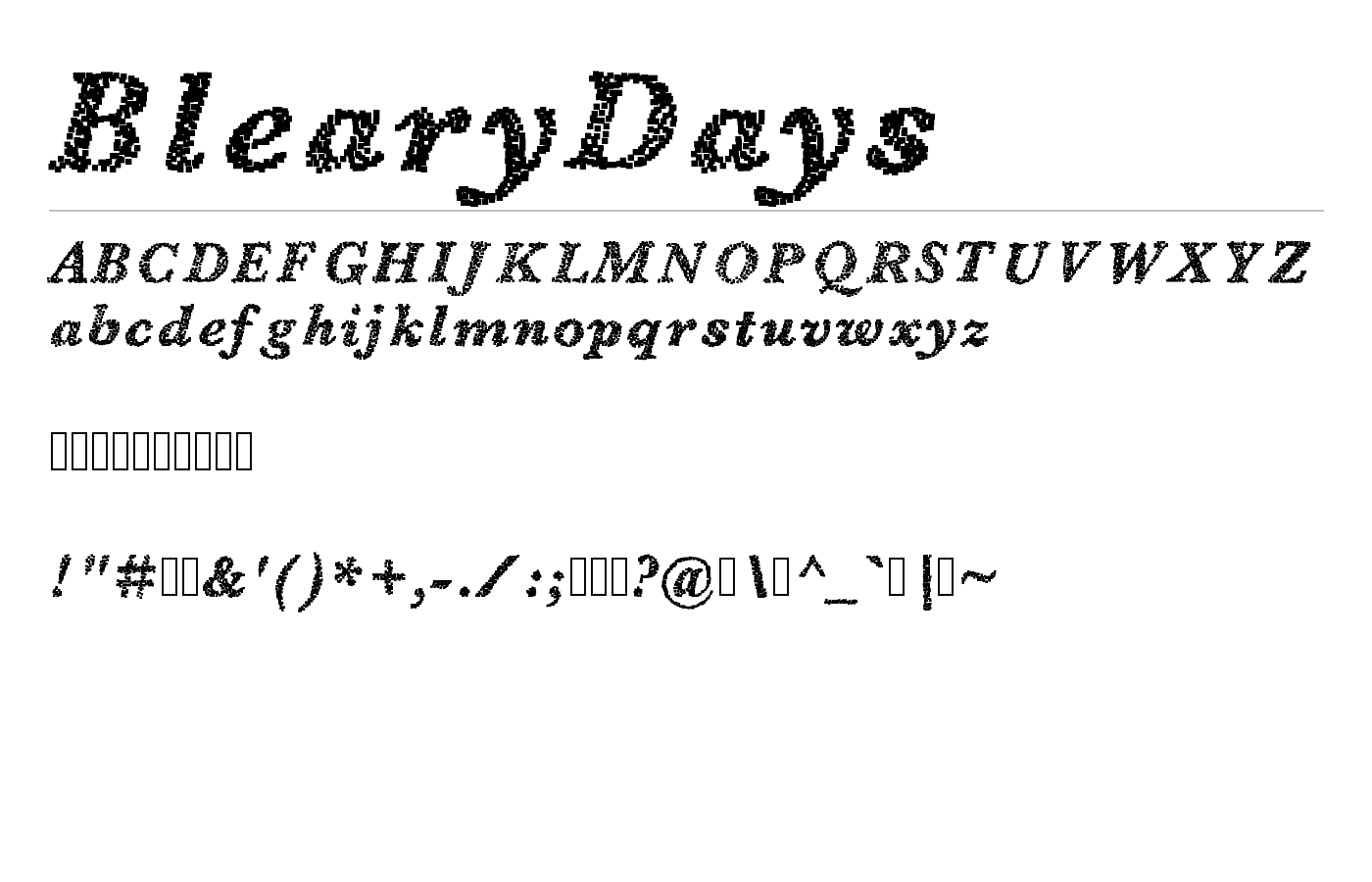
BlearyDays is a serif font with a textured, distressed appearance that gives it a vintage, weathered feel. Its medium weight and classic letterforms with slight slanting create a sense of old-fashioned charm, making it well-suited for designs needing a nostalgic or rustic touch. This font works great for logos, posters, and editorial projects where a worn, handcrafted look can add character and warmth.
BlearyDays Font
About BlearyDays Font